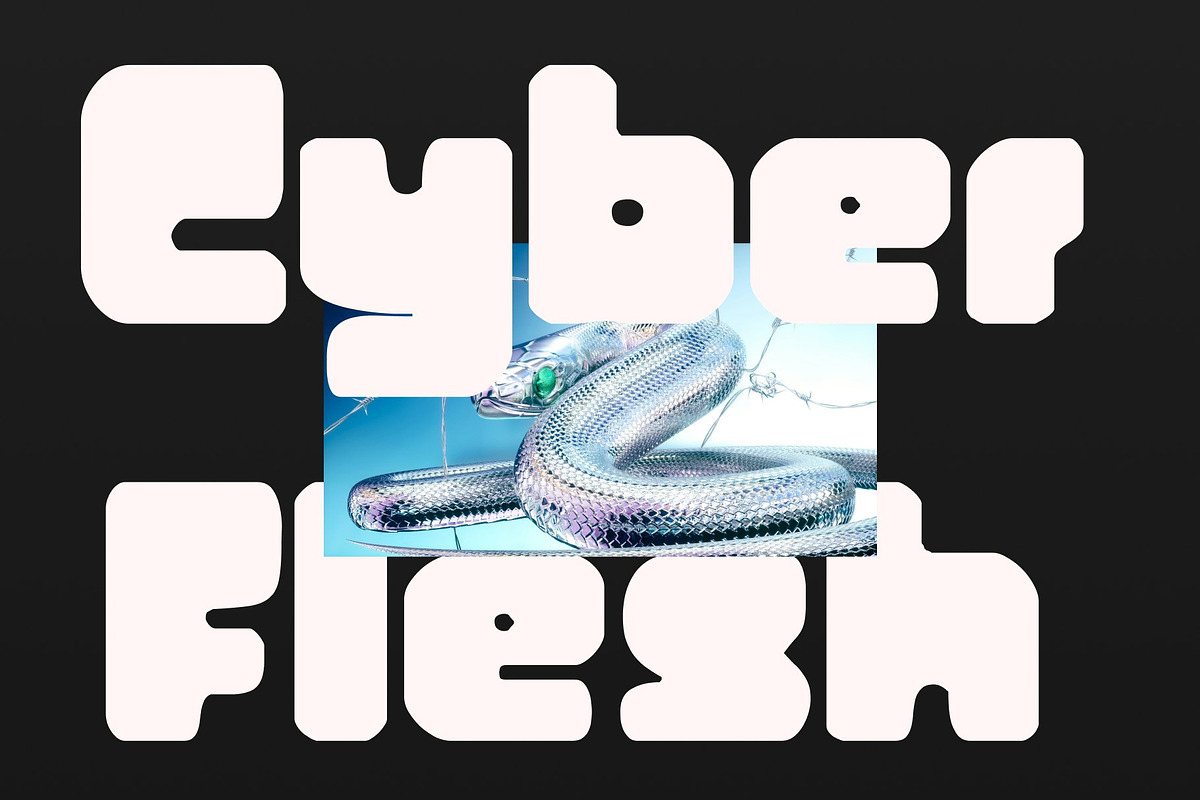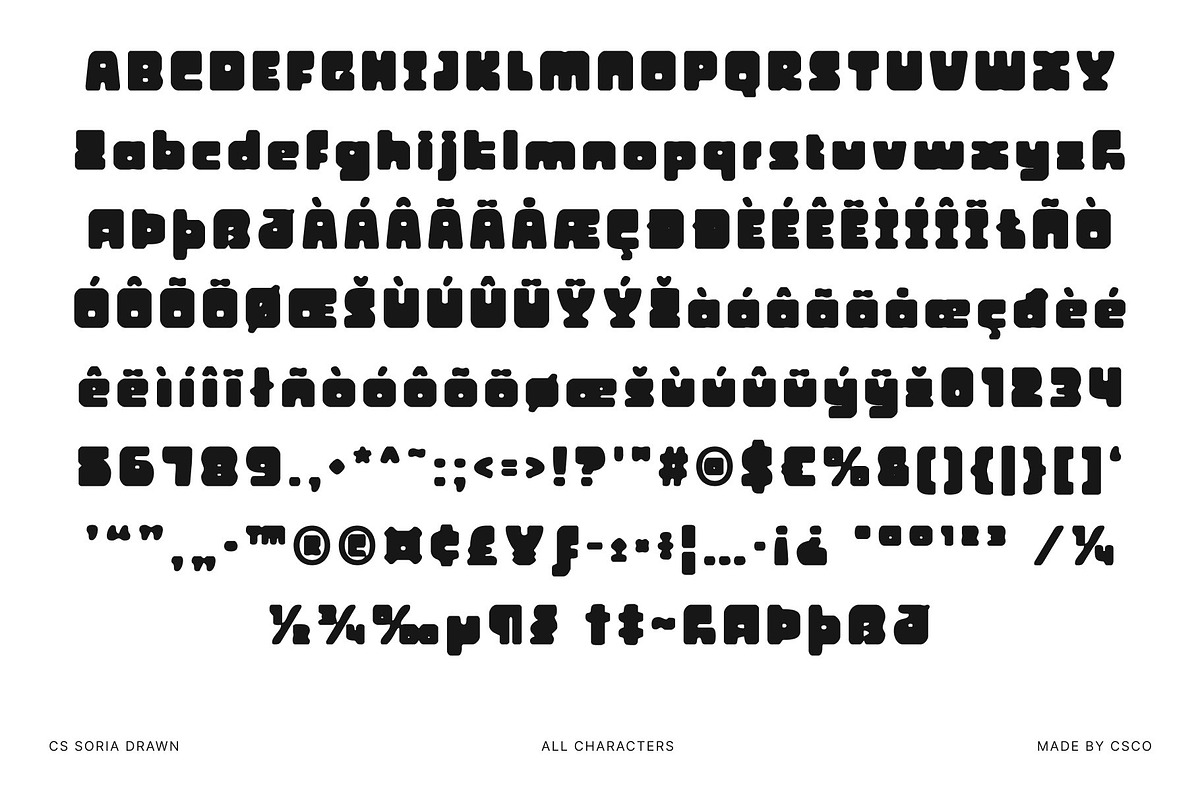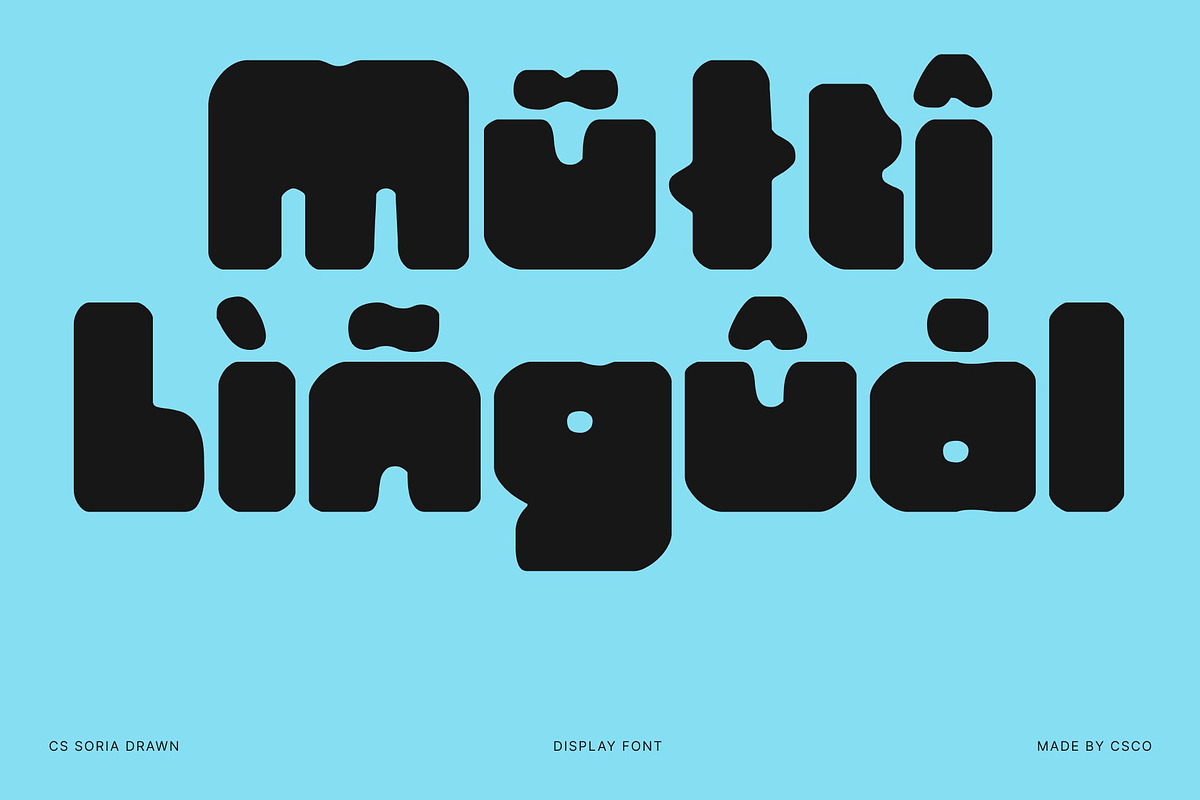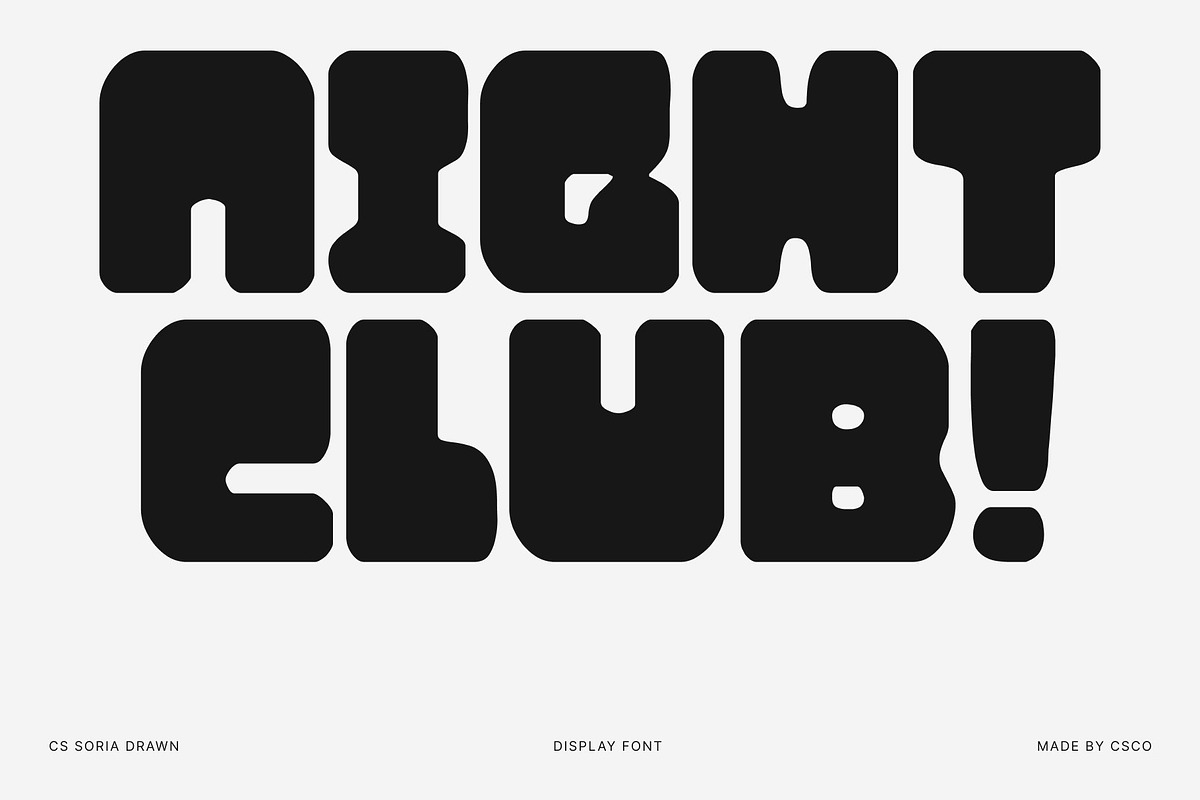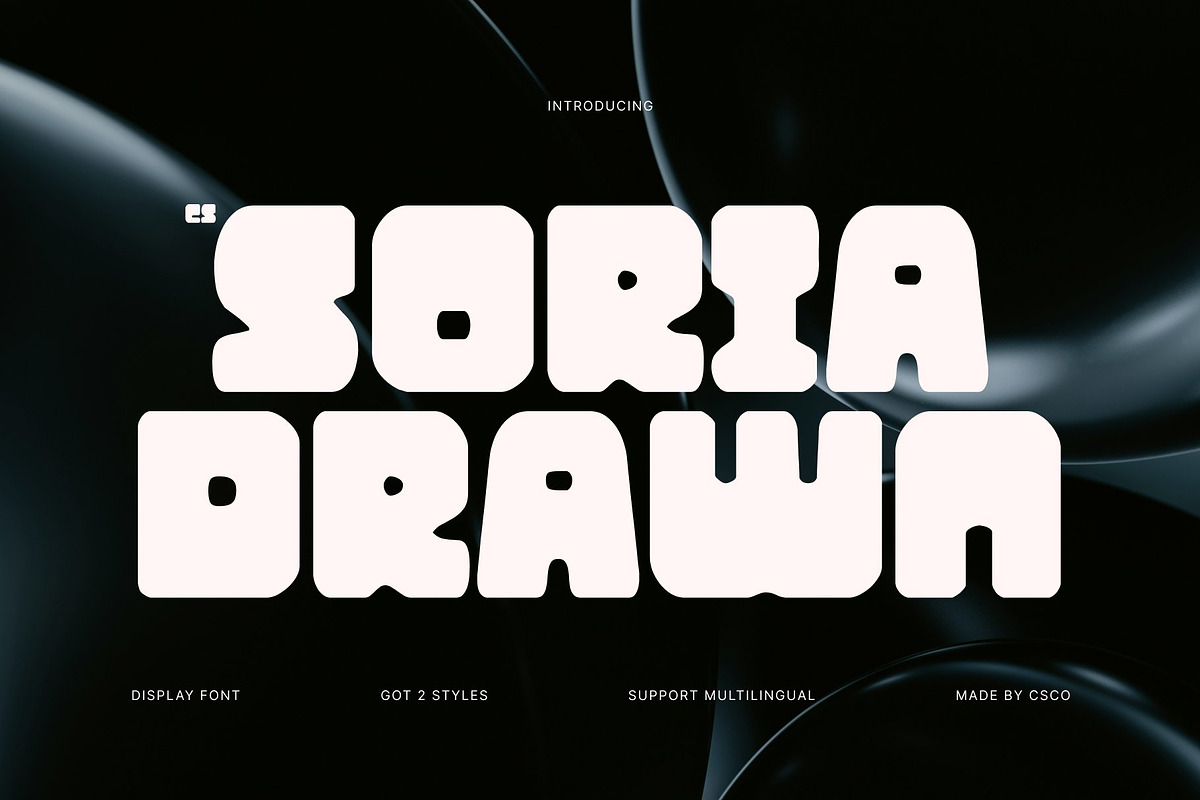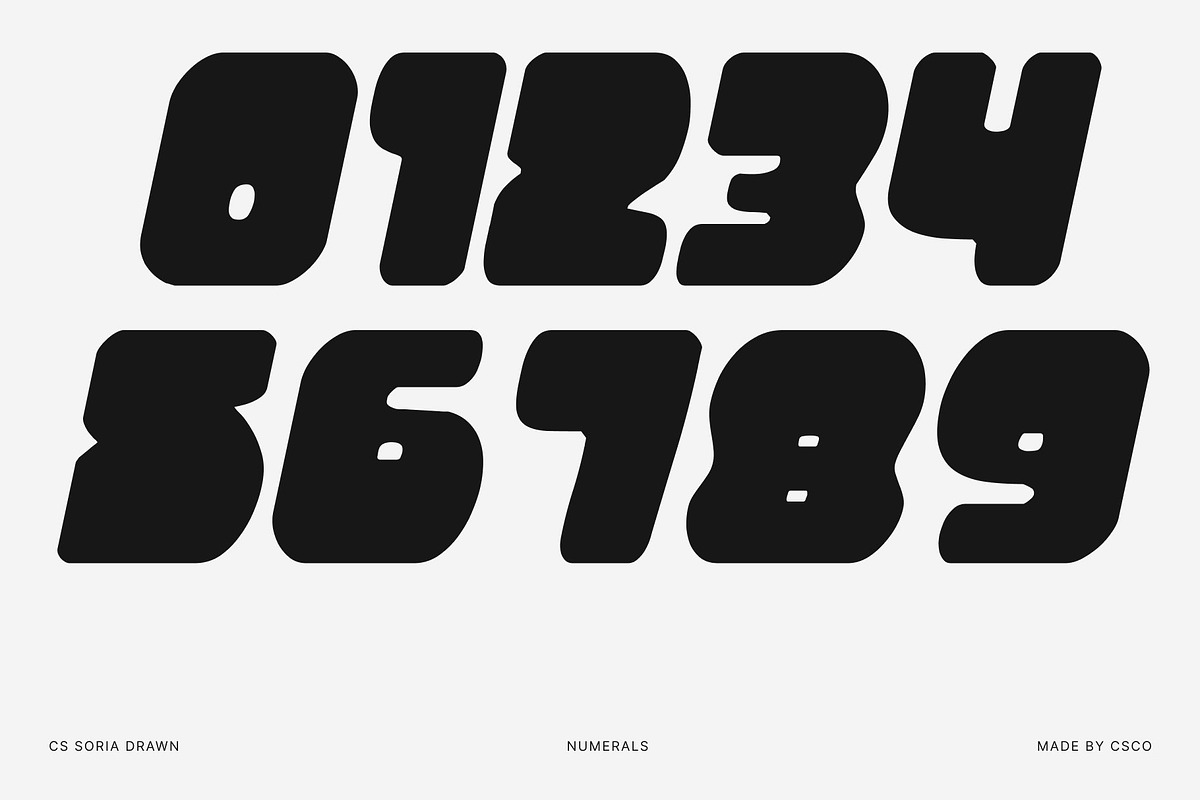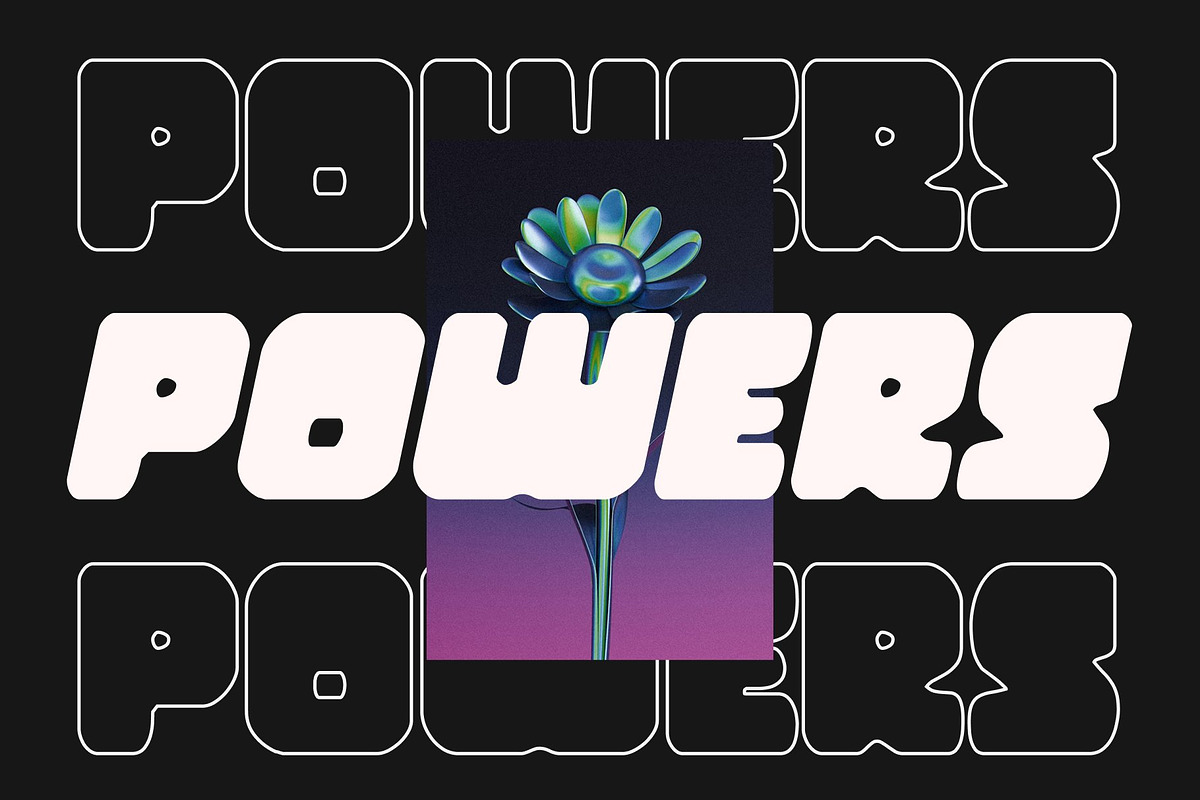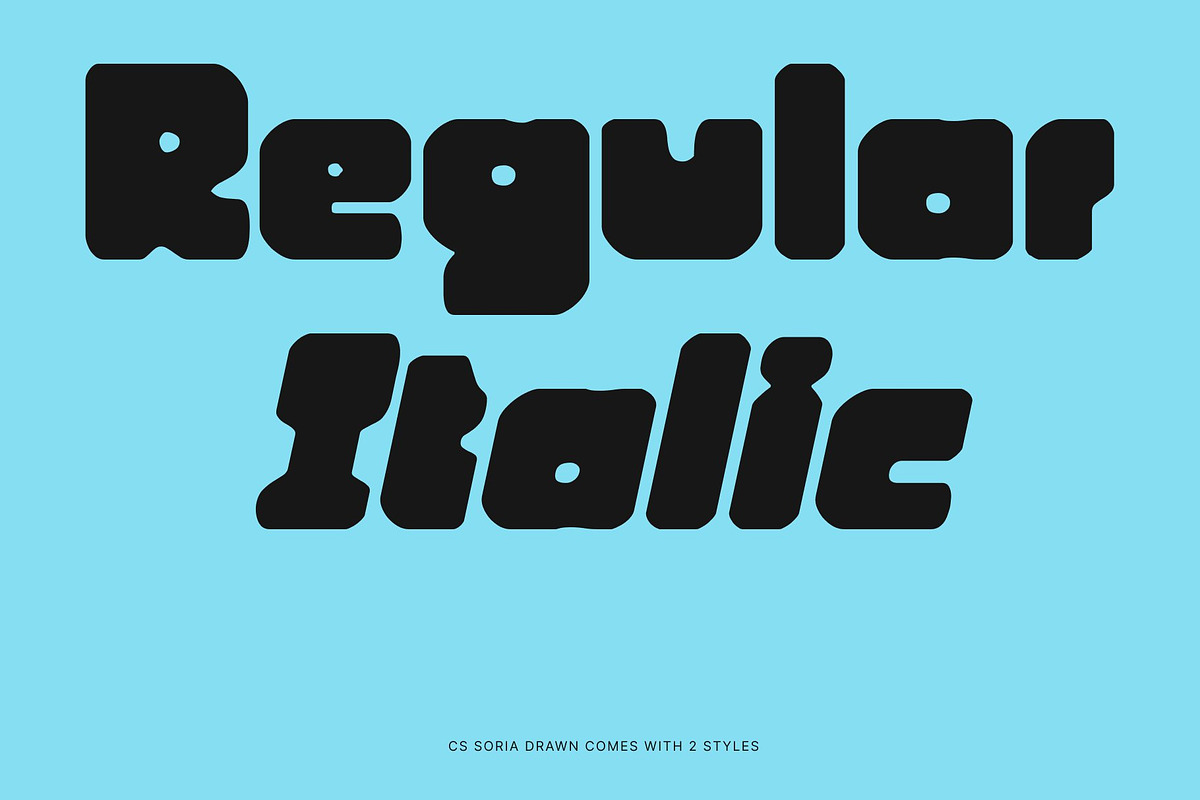
CS Soria Drawn
CS Soria Drawn – Y2K Style with Futuristic Flair
Y2K Display Font with Early 2000s Energy This is a stylish display font inspired by the vibrant aesthetics of the early 2000s. Its confident, thick shapes and sleek design echo the futuristic optimism of the Y2K era, where digital meets daring. Each character bursts with attitude, while the subtle drawn texture adds a handcrafted, artistic touch, giving the typeface a unique, dynamic personality.
Thick Forms with Hand-Drawn Character The solid, heavy strokes of this font ensure maximum presence in any layout. Its sculpted forms and slightly irregular drawn edges create a tactile, hand-rendered effect, bringing warmth and motion to every letter. This combination of structure and artistic texture makes your designs feel both futuristic and personal.
Futuristic Design with Playful Energy This font blends futuristic geometry with playful Y2K charm. The drawn details add depth and authenticity to each character, while smooth curves and sharp angles convey a sense of digital motion. This balance makes the font feel alive, energetic, and forward-looking, perfect for imaginative projects.
Perfect for Modern, Digital, and Creative Projects Ideal for digital branding, party graphics, music visuals, and experimental layouts, this font delivers energetic impact with a handcrafted vibe. Whether designing for a fashion label, event poster, or online campaign, this font brings the electric energy of the 2000s into the modern design world futuristic, playful, and distinctly artistic.
- CS Soria Drawn Regular
- CS Soria Drawn Italic